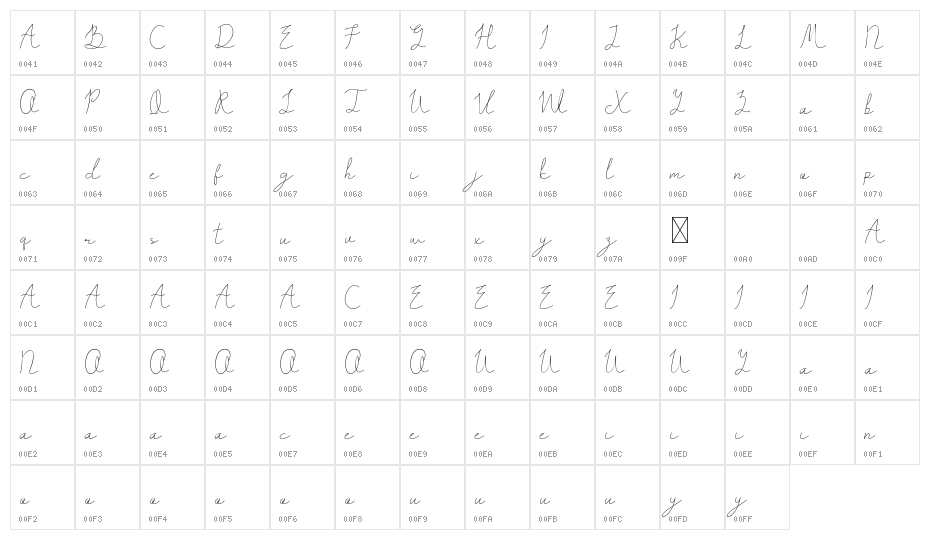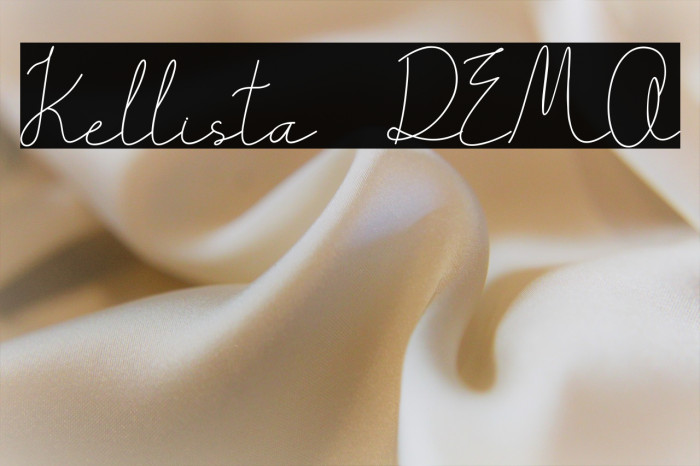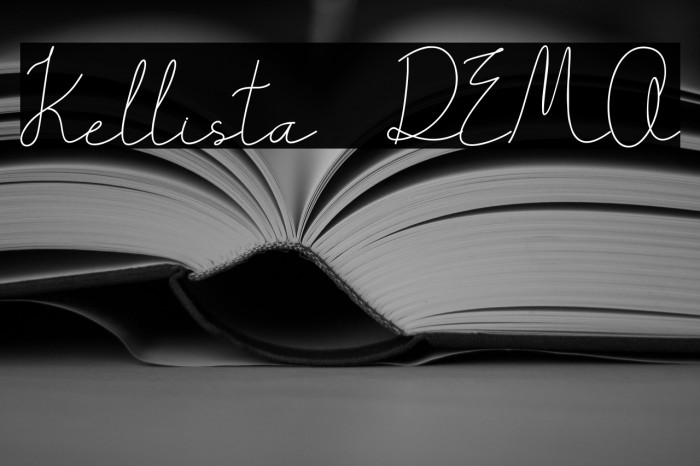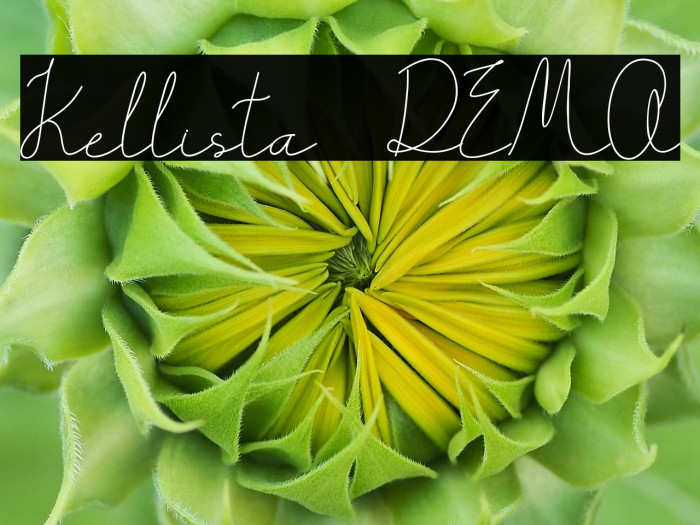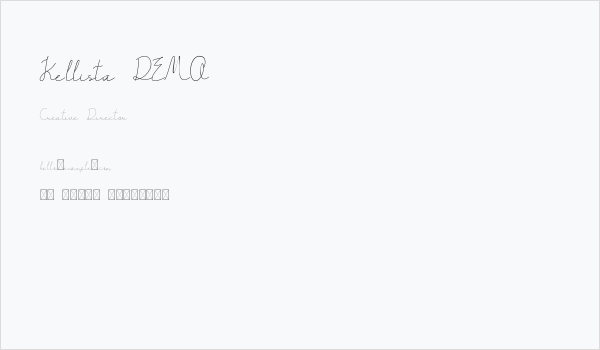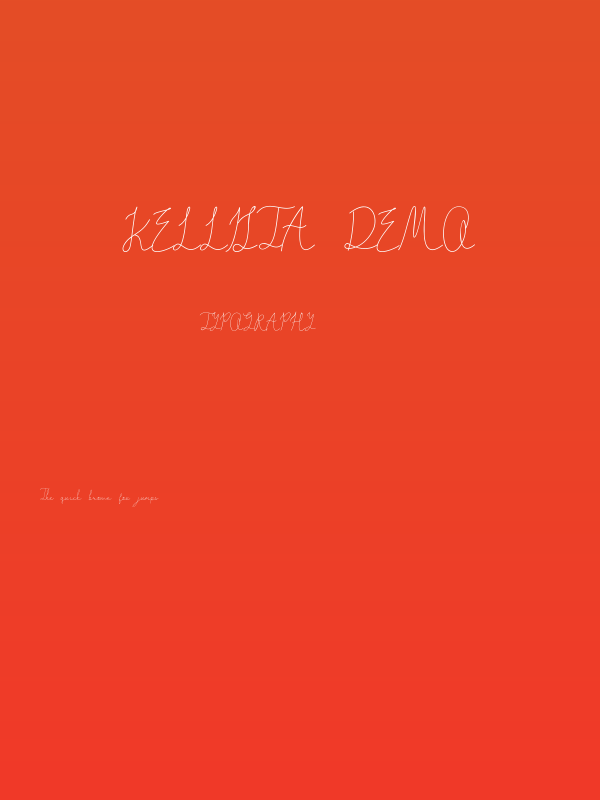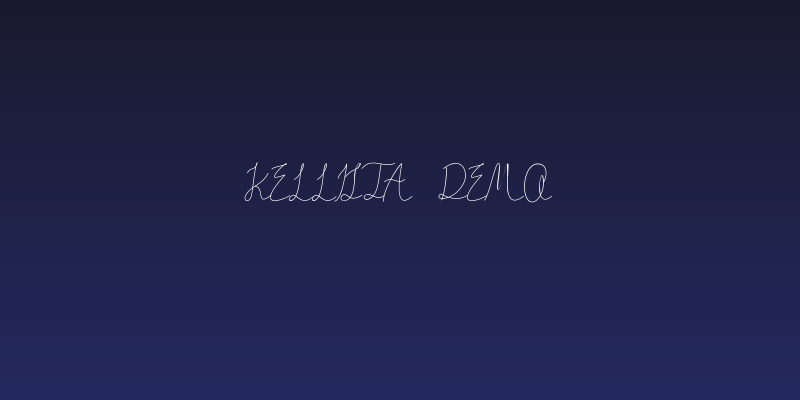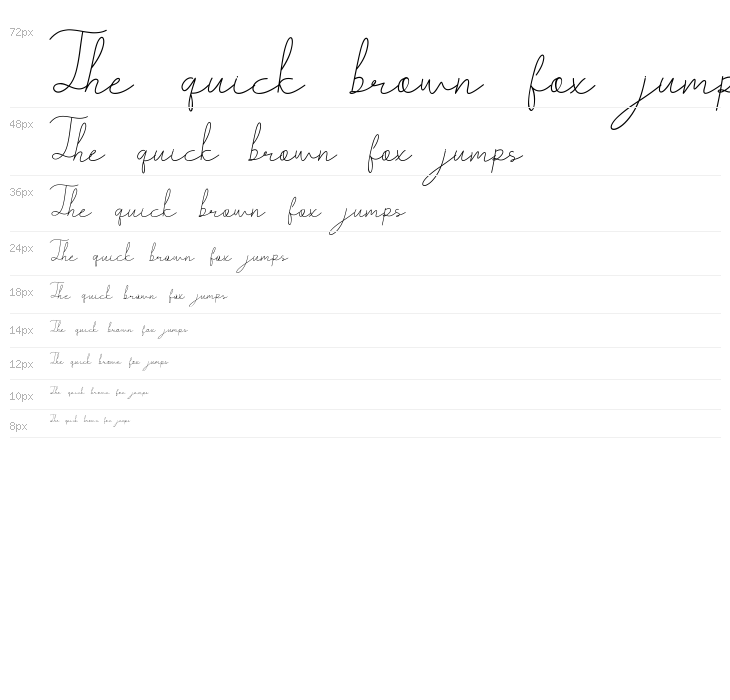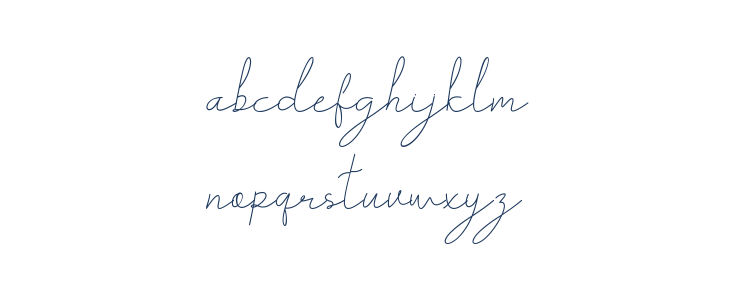
Kellista DEMO Font
Kellista DEMO Description
This font exhibits a delicate and elegant script style, characterized by its flowing, cursive letterforms. The strokes are thin and consistent, giving it a refined and sophisticated appearance. The uppercase letters are slightly larger and more ornate, while the lowercase letters maintain a smooth and connected flow. The overall design is reminiscent of traditional calligraphy, with a modern twist that makes it suitable for contemporary use. The font's graceful curves and loops add a touch of elegance, making it ideal for formal invitations, branding, and decorative purposes.
| Overall Style | Elegant, Modern |
| Use Case | Headlines, Invitations, Branding |
| Proposed Projects | Ideal for wedding invitations, elegant branding, decorative headings, and formal event materials. |